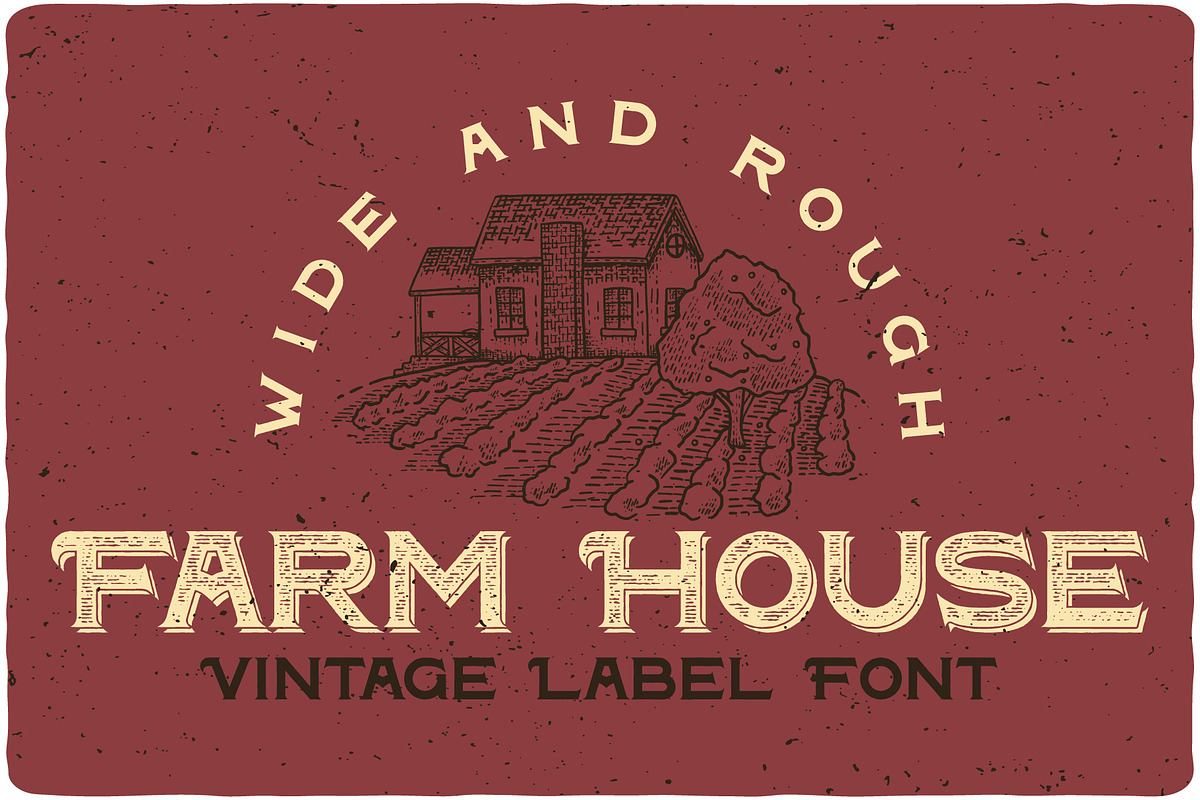
Farm House Typeface Free Download is a rustic and charming typeface inspired by country living and farmhouse aesthetics. With its hand-crafted letterforms, this font is perfect for creating designs that evoke warmth, nostalgia, and a touch of simplicity. Ideal for logos, branding, invitations, posters, and packaging for natural or organic products, Farm House brings a cozy, homey feel to any project.
Its earthy, casual style is perfect for designs that require a rustic, inviting look. Whether you're working on a farm-themed project, rustic home decor branding, or country-style designs, Farm House adds authenticity and personality to your typography.